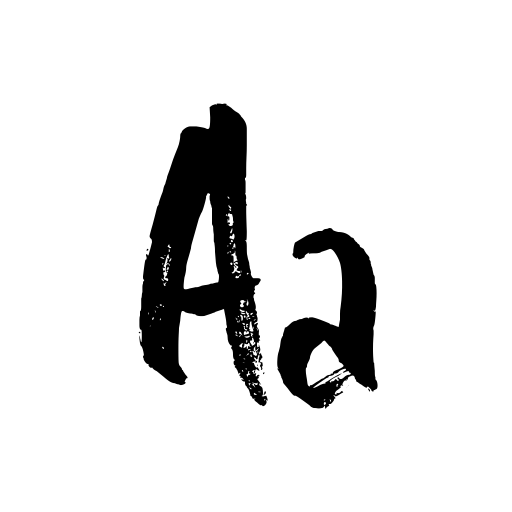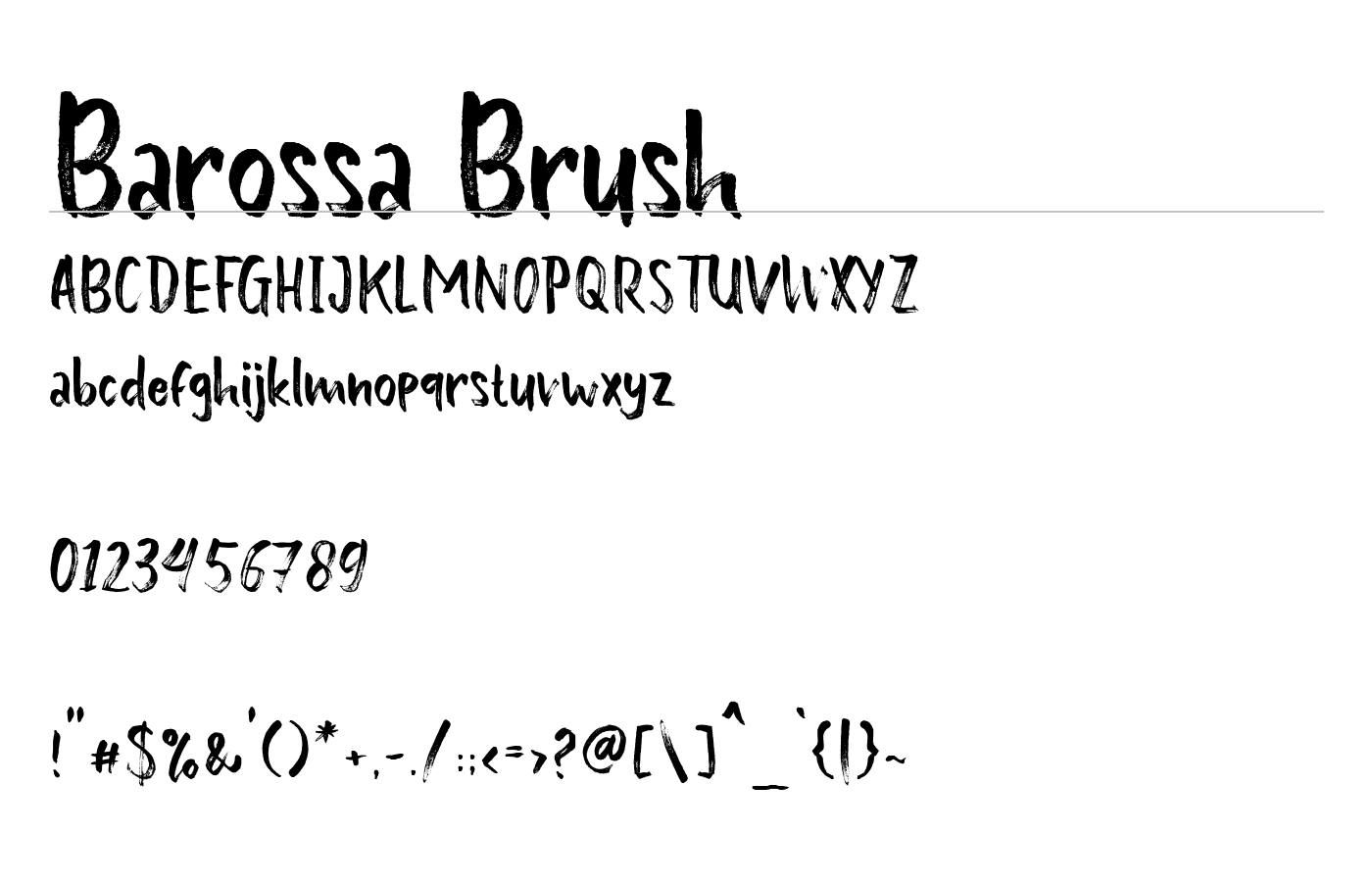
Barossa Brush is a lively, hand-painted brush script font with a textured, rough edge that gives it a casual and artistic feel. Its tall, slightly condensed letterforms and uneven stroke widths create an expressive, organic look perfect for creative, informal branding, posters, and packaging. This font brings an energetic, handcrafted charm, making it ideal for projects seeking an approachable yet bold personality.
Barossa Brush Font
About Barossa Brush Font
| Font family | Barossa Brush Font |
| Designer | Fajriadi |